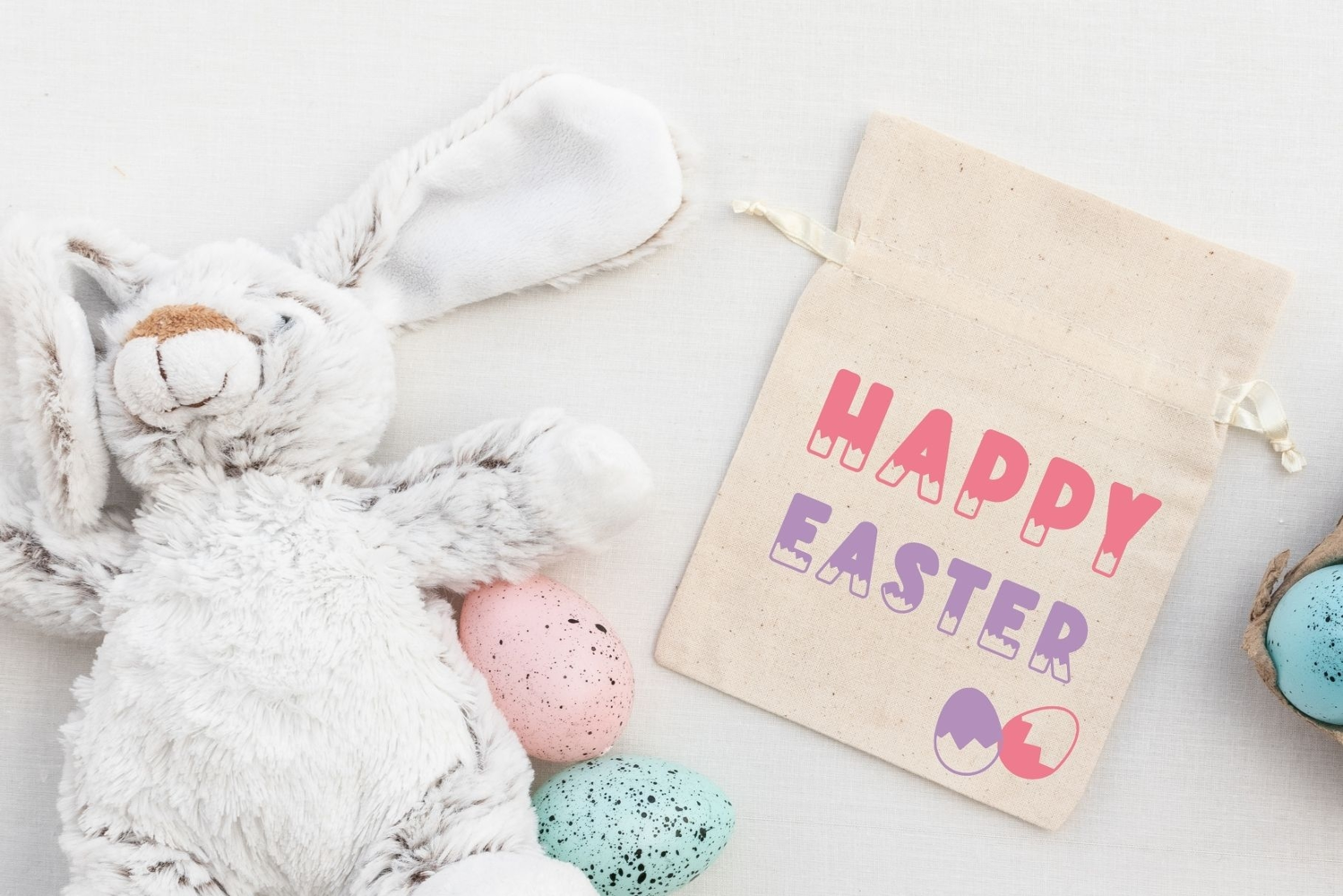
Crackie Egg - Easter Font Duo
CrackieEgg
CrackieEgg-Deco
Crackie Egg is a fun and bouncy display font inspired by pastel-colored Easter eggs and playful springtime joy! Each letter comes with a charming cracked-egg design, making it the perfect choice for children’s projects, Cricut crafts, and cheerful branding.
This font includes two styles:
🥚 A bold uppercase set with cracked bases
🐣 A playful egg-hatch silhouette version
Bring a smile to every design with Crackie Egg – where every letter hatches happiness!